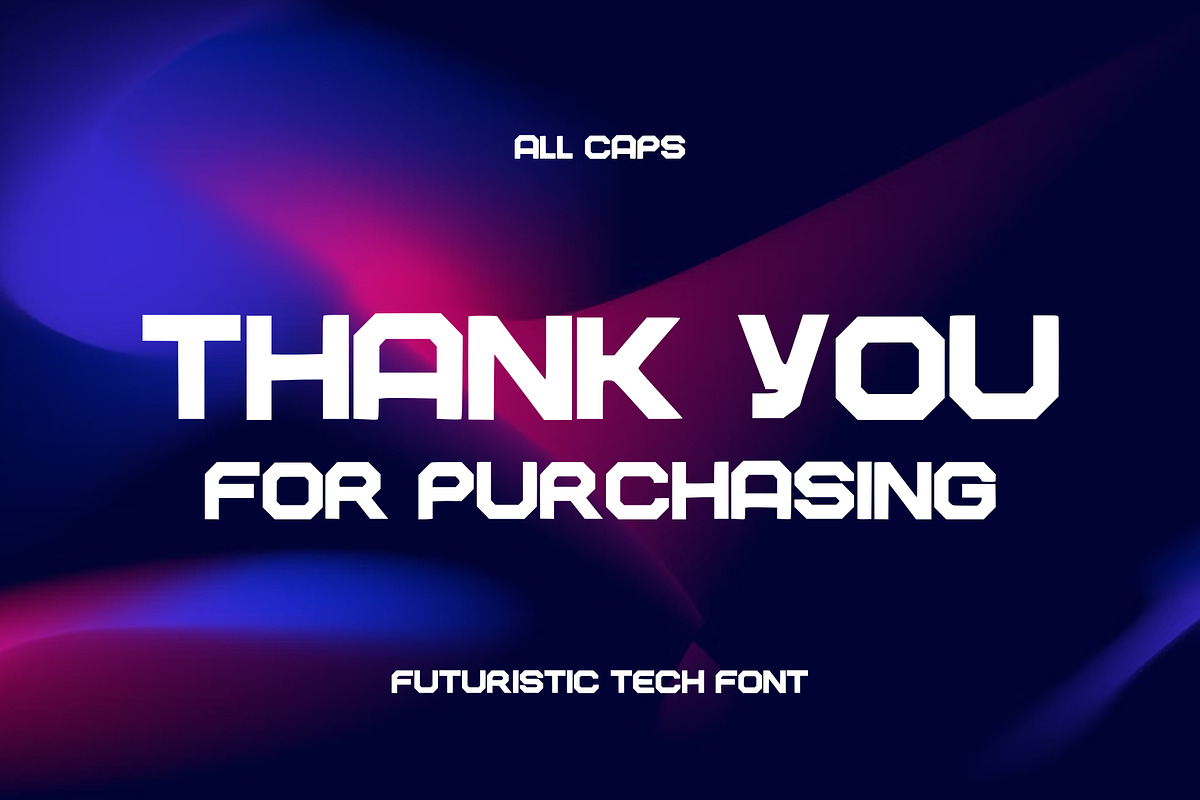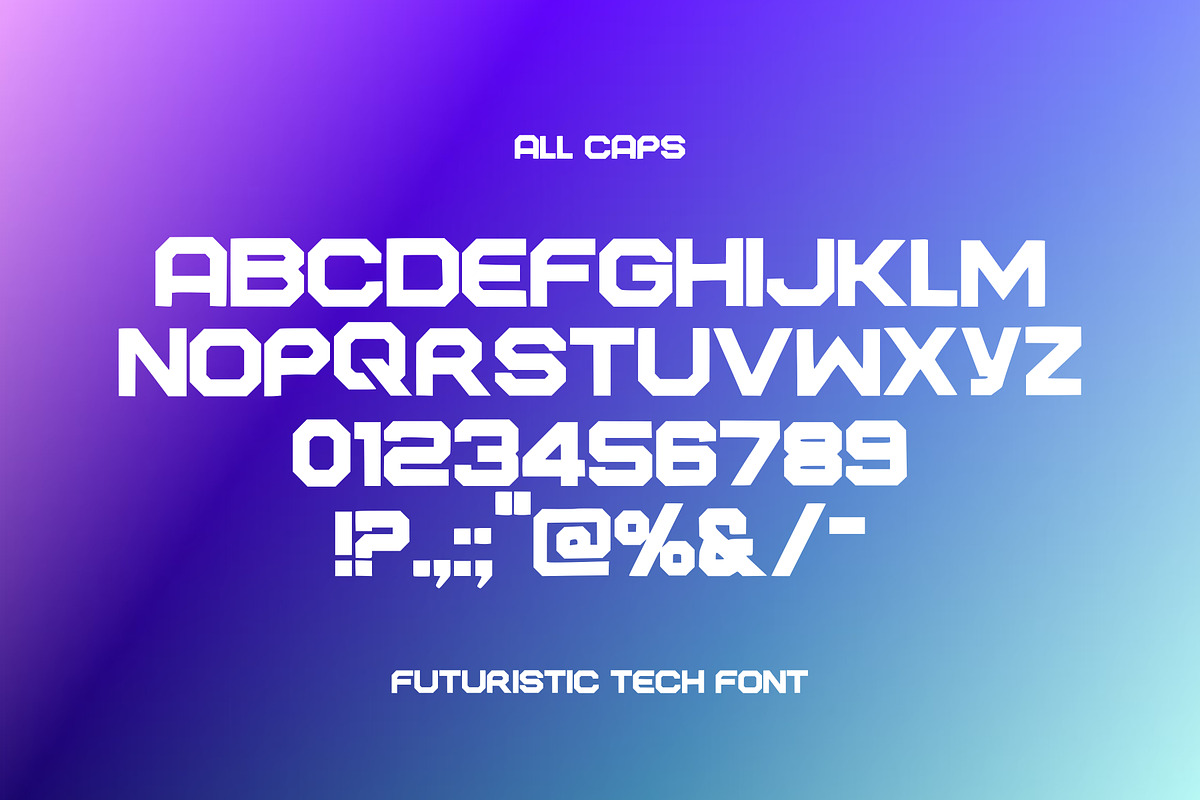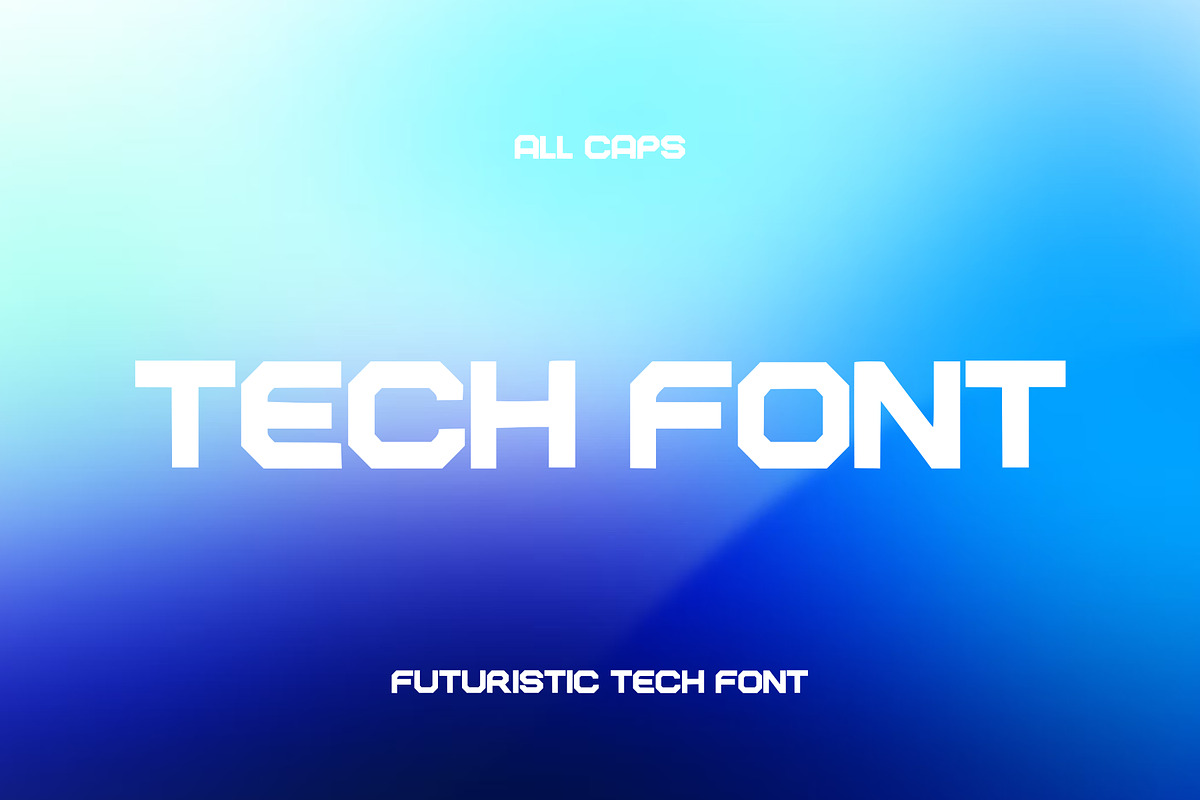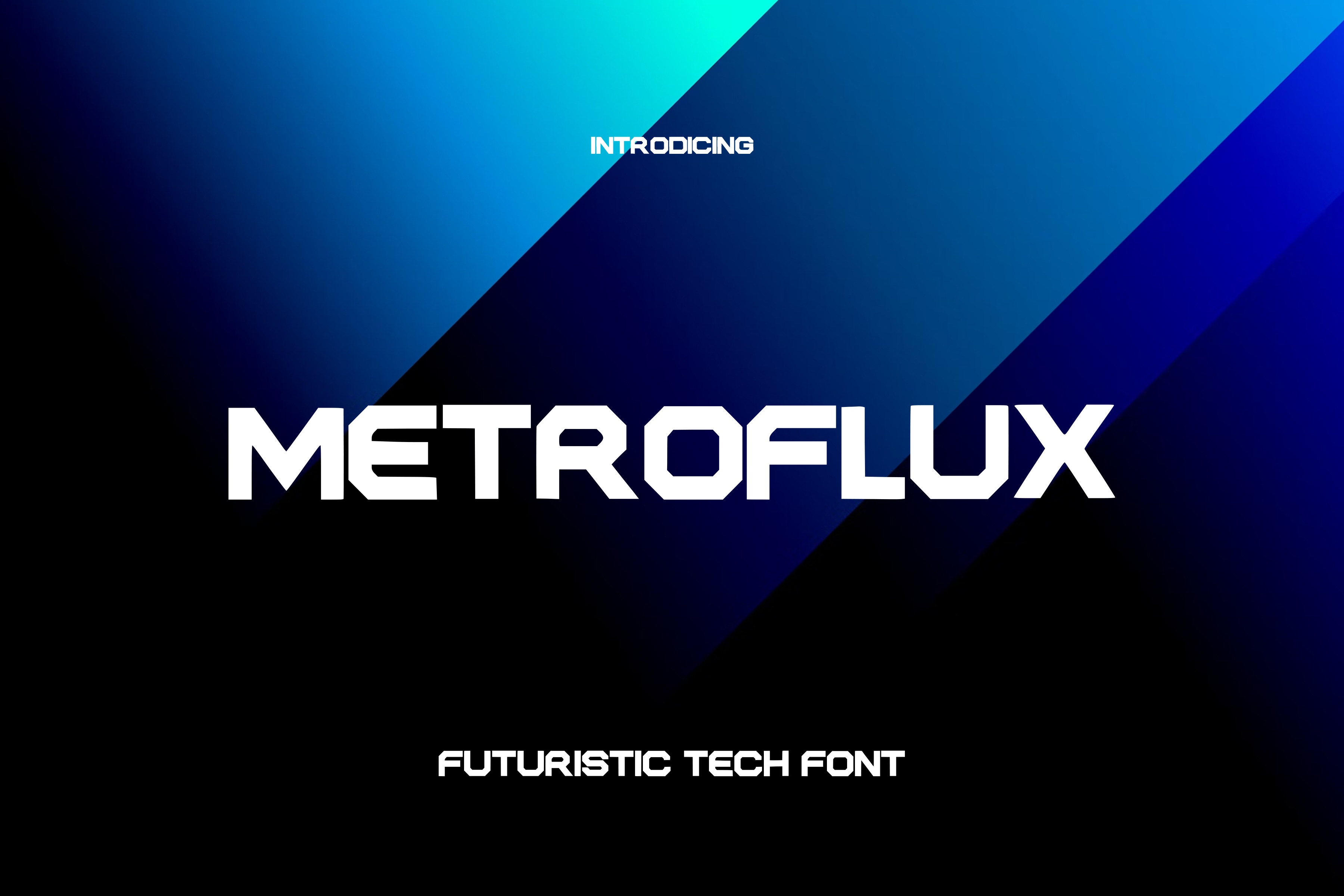
Metroflux Futuristic tech font
Step into the future of design with Metroflux Futuristic tech font crafted for modern branding and high-impact visuals. With its geometric shapes, sharp edges, and sleek condensed style, Metroflux delivers a strong, cutting-edge look that’s perfect for projects demanding a futuristic aesthetic.
Elevate your designs with the Metroflux Futuristic Tech Font – the ultimate choice for creatives who want to capture the spirit of innovation, technology, and modern style.